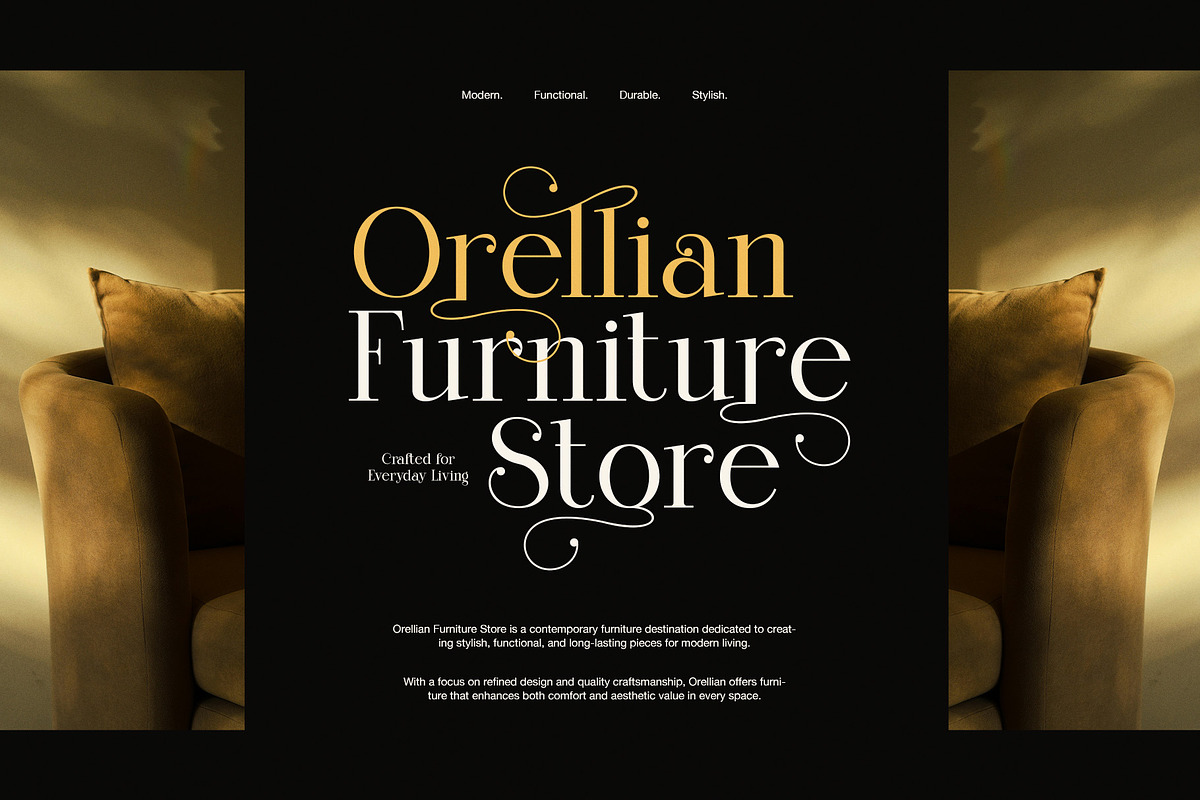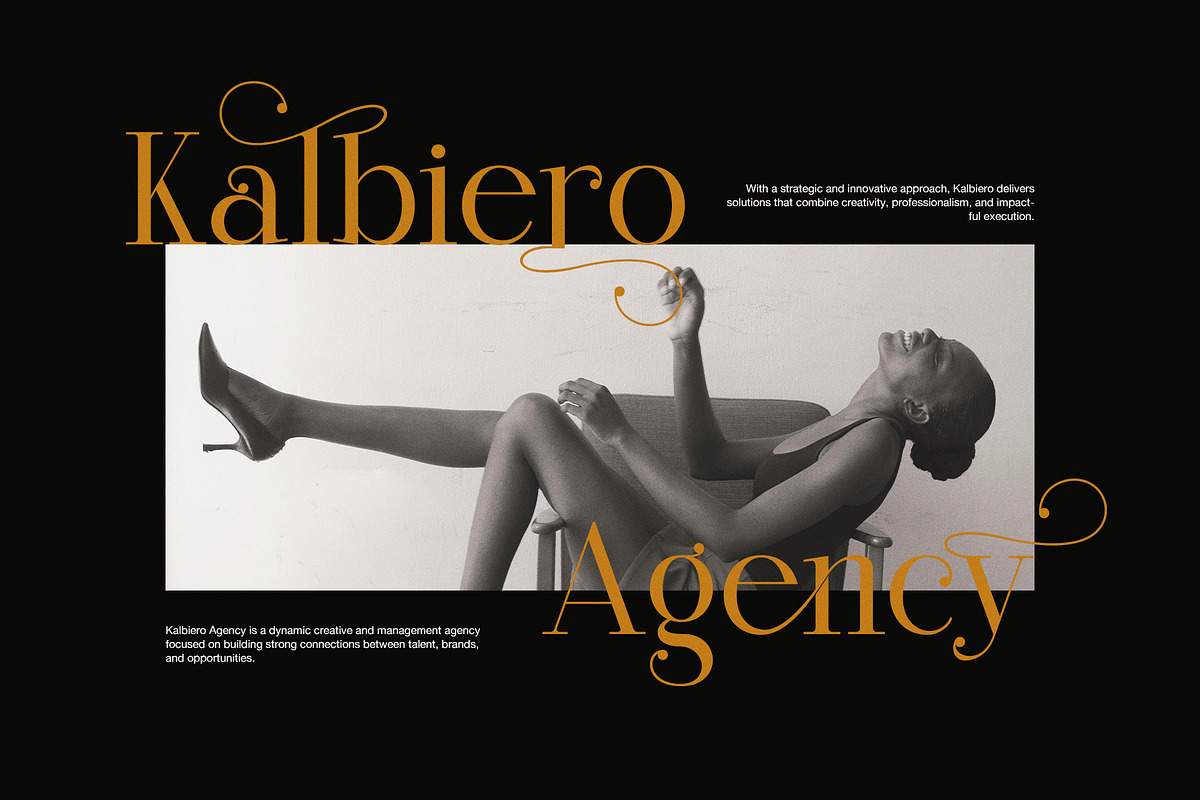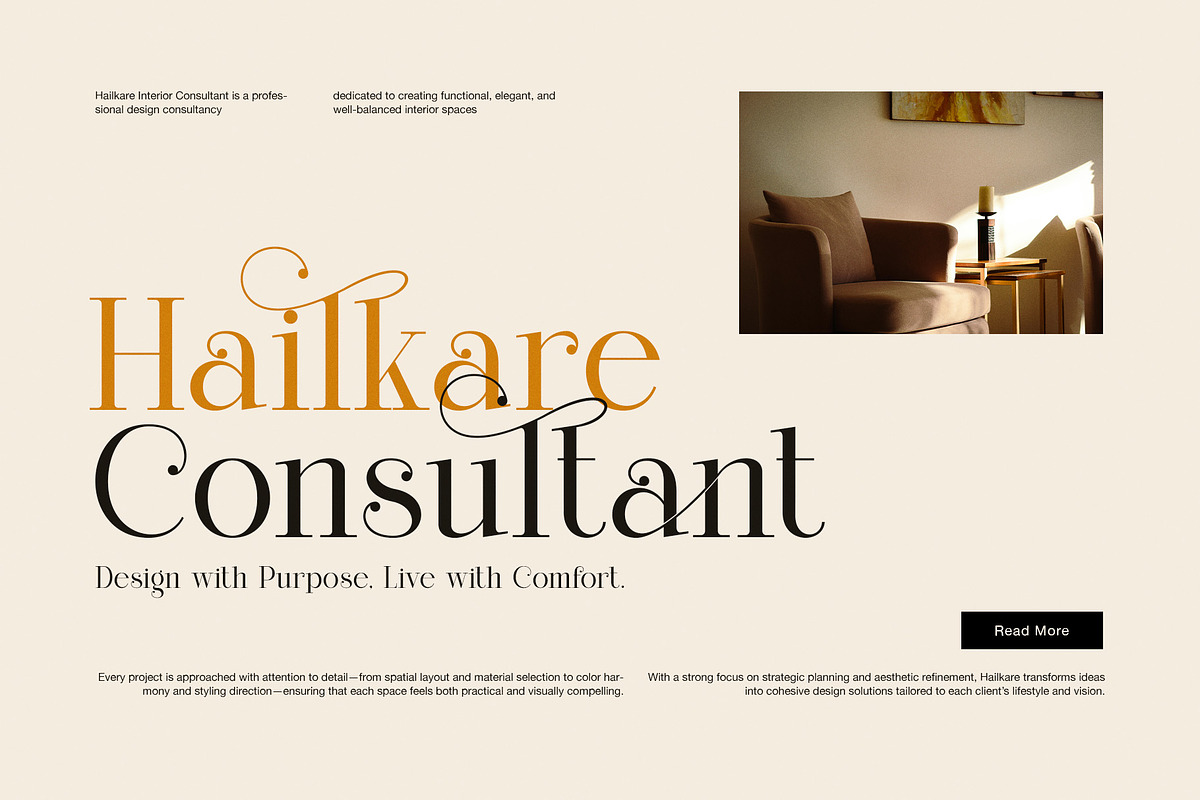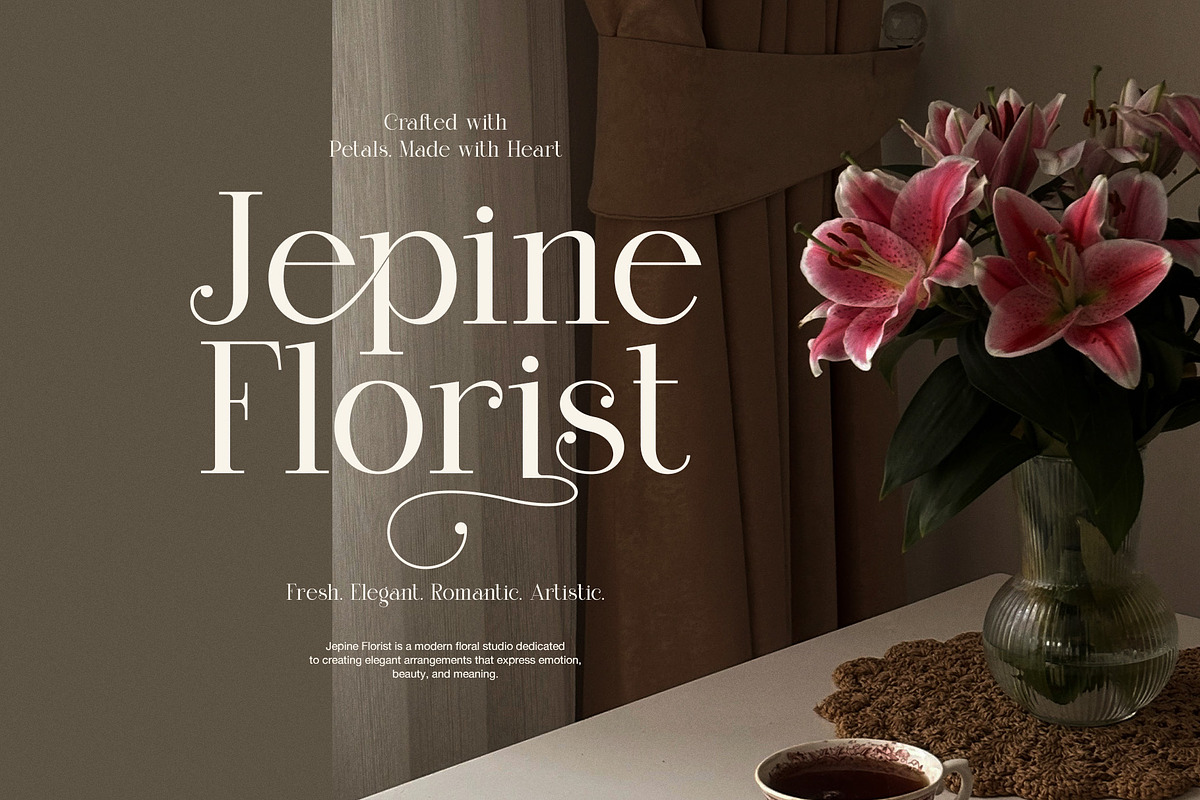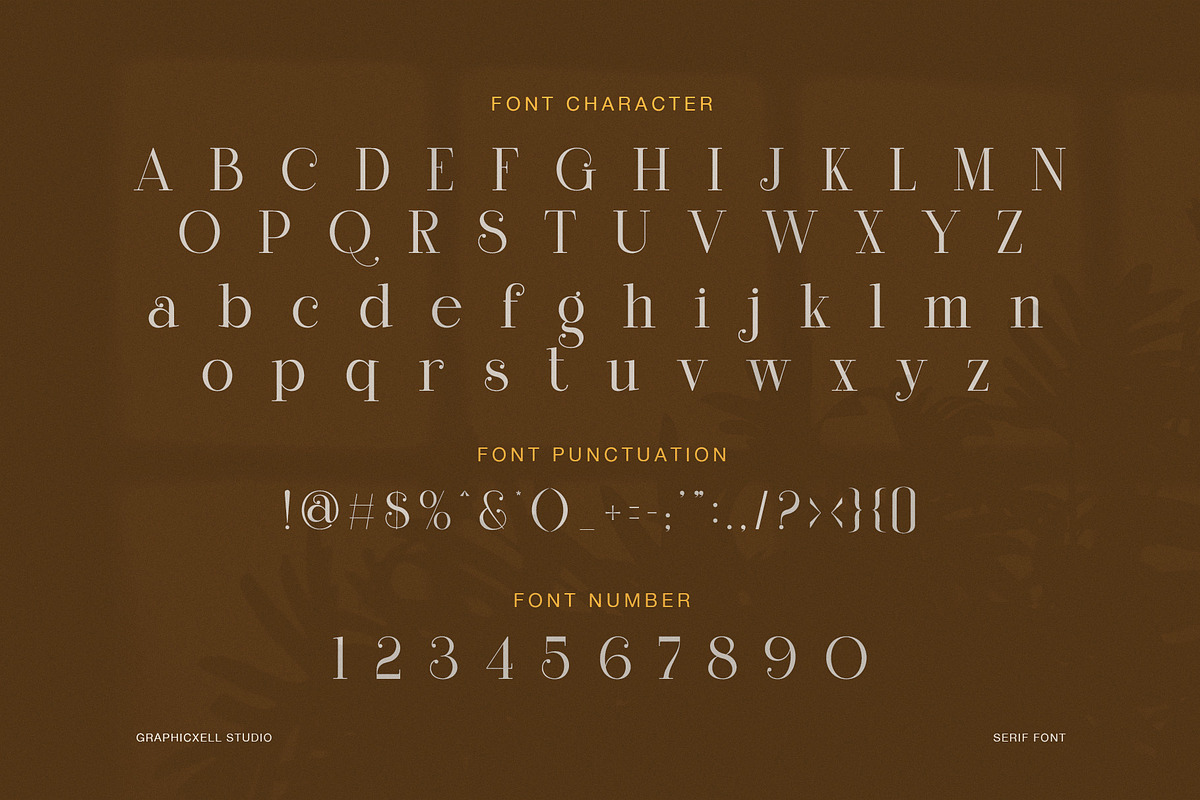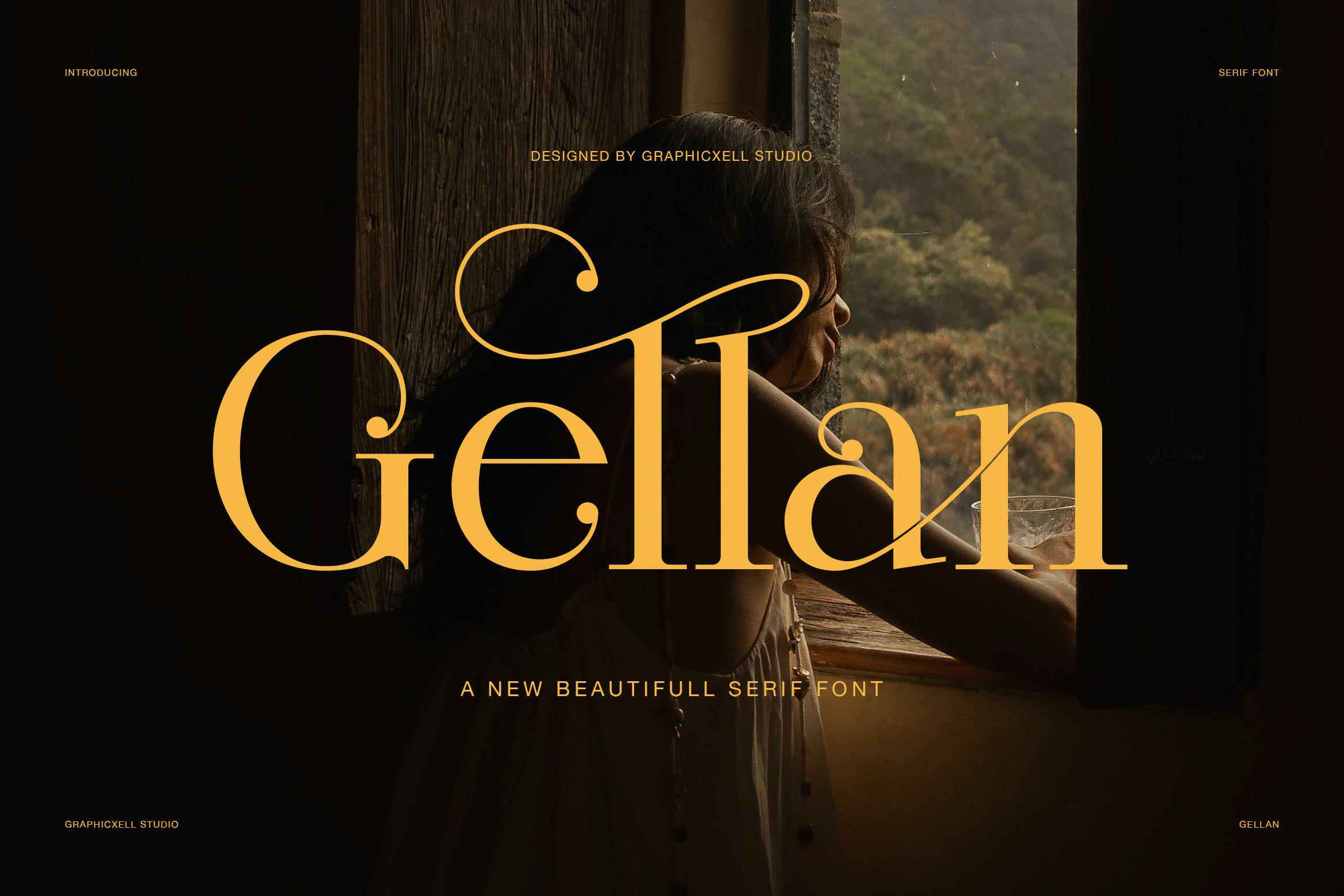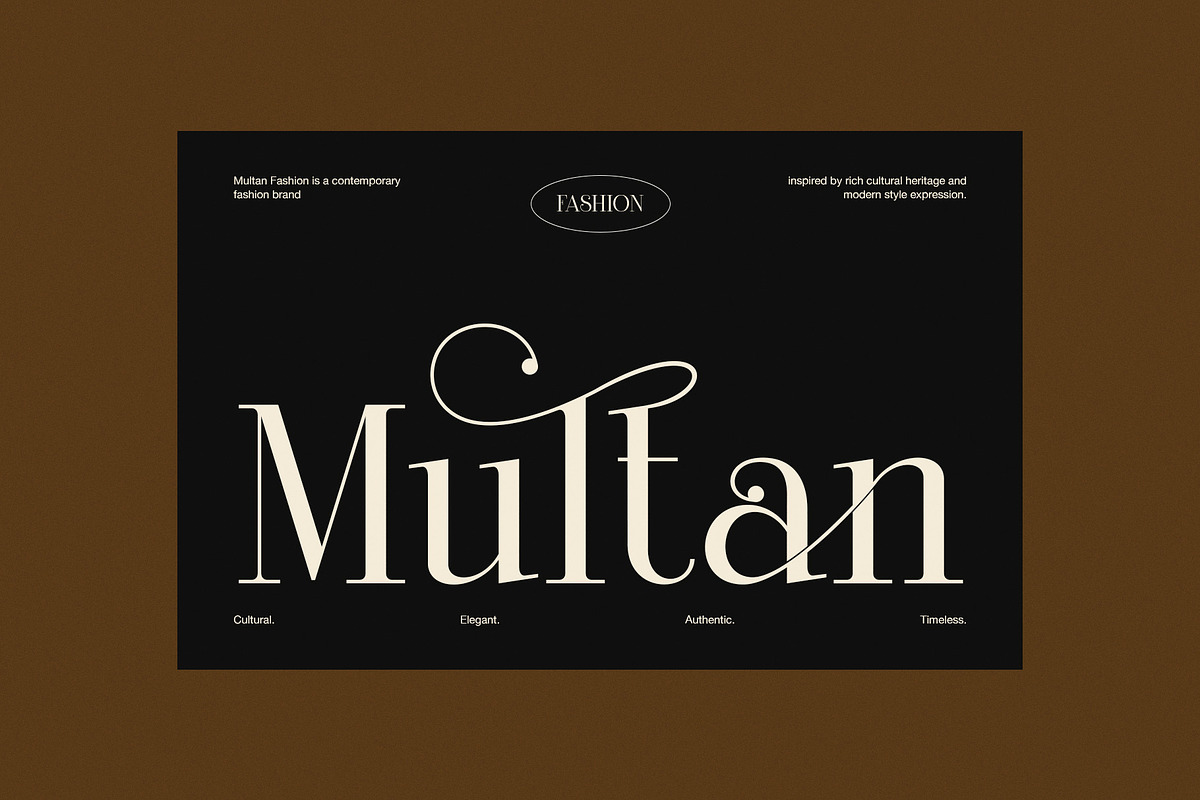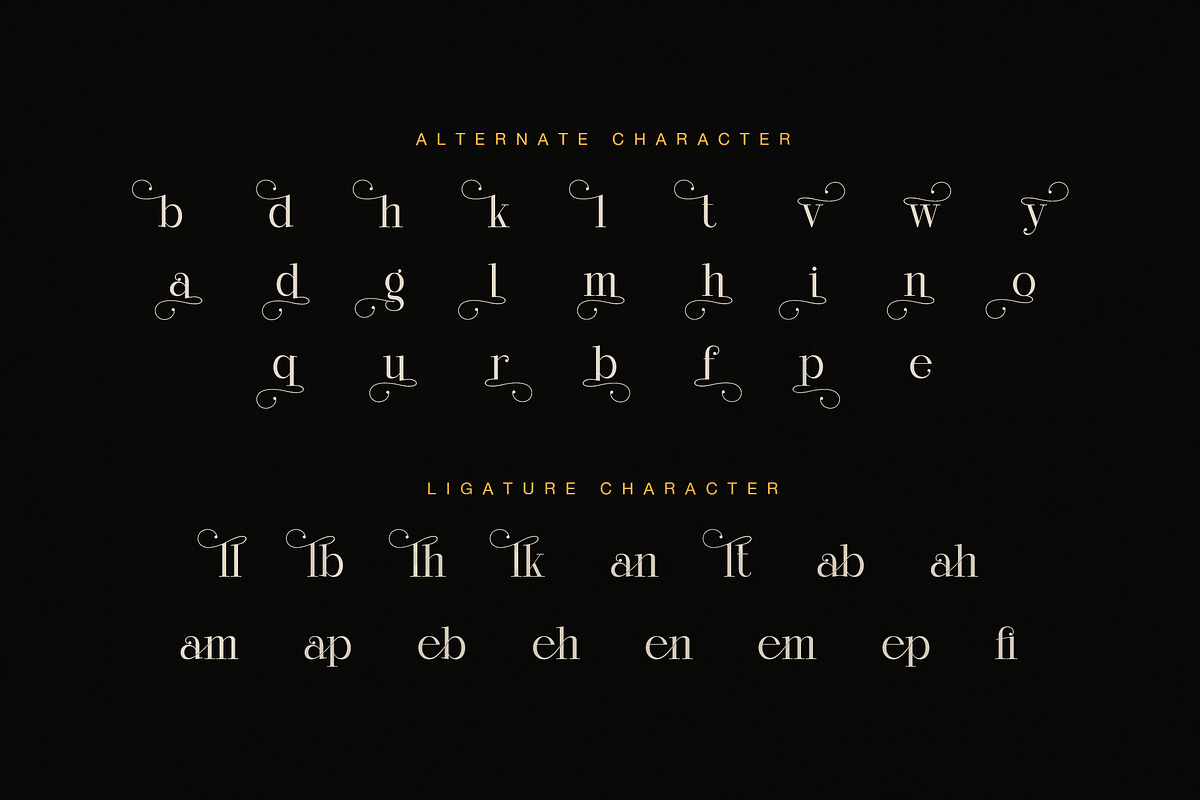
Gellan Elegant Serif Font
Gellan Elegant Serif Font is a graceful display serif made for brands that want to look refined, warm, and memorable. At first glance, it feels elegant and soft. However, the more you study it, the more personality it shows. Its high-contrast strokes, slim structure, and flowing swash alternates create a polished look that feels both classic and fresh. Because of that balance, Gellan works beautifully for modern design that still wants a timeless soul.
This font has a strong visual character. The main letterforms are clean and poised, while the decorative endings add movement and charm. As a result, headlines feel expressive without losing clarity. In addition, the alternates and ligatures help simple words look custom and more premium. So, Gellan is not only attractive, but also useful for designers who want a signature look in their work.
Gellan is especially effective in display settings. For example, it looks stunning in logos, fashion branding, beauty packaging, floral identities, boutique labels, magazine titles, hotel branding, interior design presentations, and social media visuals. Likewise, it suits wedding stationery, product packaging, café menus, and feminine brand systems. Since the shapes are elegant yet readable, the font can carry both luxury and romance in a very natural way.
Another strength of Gellan is its styling range. It can look soft and romantic in one layout, then rich and dramatic in another. Moreover, it pairs well with clean sans serif fonts, muted colors, editorial photography, and minimal compositions. Therefore, it gives designers room to build branding that feels elevated, artistic, and consistent.
Why designers may choose Gellan:
Elegant serif design with a luxury display feel
Beautiful swash alternates for standout headlines
Ligatures that add a custom and polished touch
High contrast forms with soft visual rhythm
Ideal for fashion, beauty, floral, and editorial work
Strong presence for logos, packaging, and branding
Overall, Gellan Elegant Serif Font is a smart choice for projects that need beauty, grace, and strong brand presence. It feels delicate, yet it remains clear. It feels stylish, yet it still looks timeless. Therefore, if you need a luxury serif font with swashes, ligatures, and elegant display appeal, Gellan can bring a refined finish to your design.